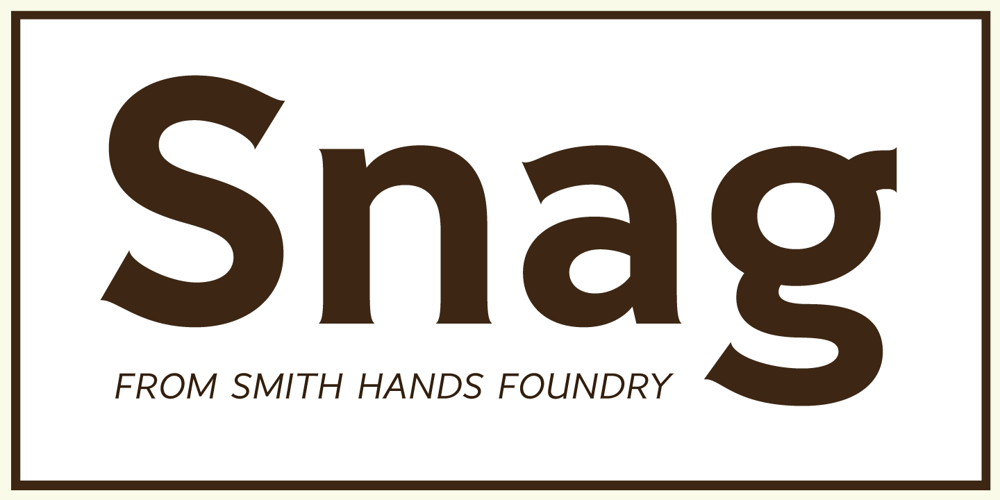
Snag
Snag font
Snag Font Family was designed by Robbie Smith and published by Smith Hands. Snag contains 6 styles and family package options. Inspired by a small fragment of sign-written lettering, discovered by accident, Snag is a robust mono-line font with small, pointed tips on its terminations. These embryo serifs are inspired by the legacy of a sign-writers brush, and add an overall texture and character to this, otherwise minimalist, style of lettering. Snag has a warm and traditional feel with a modern clarity. A strong component for a multitude of graphic design functions, including packaging, shop fronts, bar signs, advertising and clothing. Snag features a large glyph set, suitable for Latin-based languages worldwide.